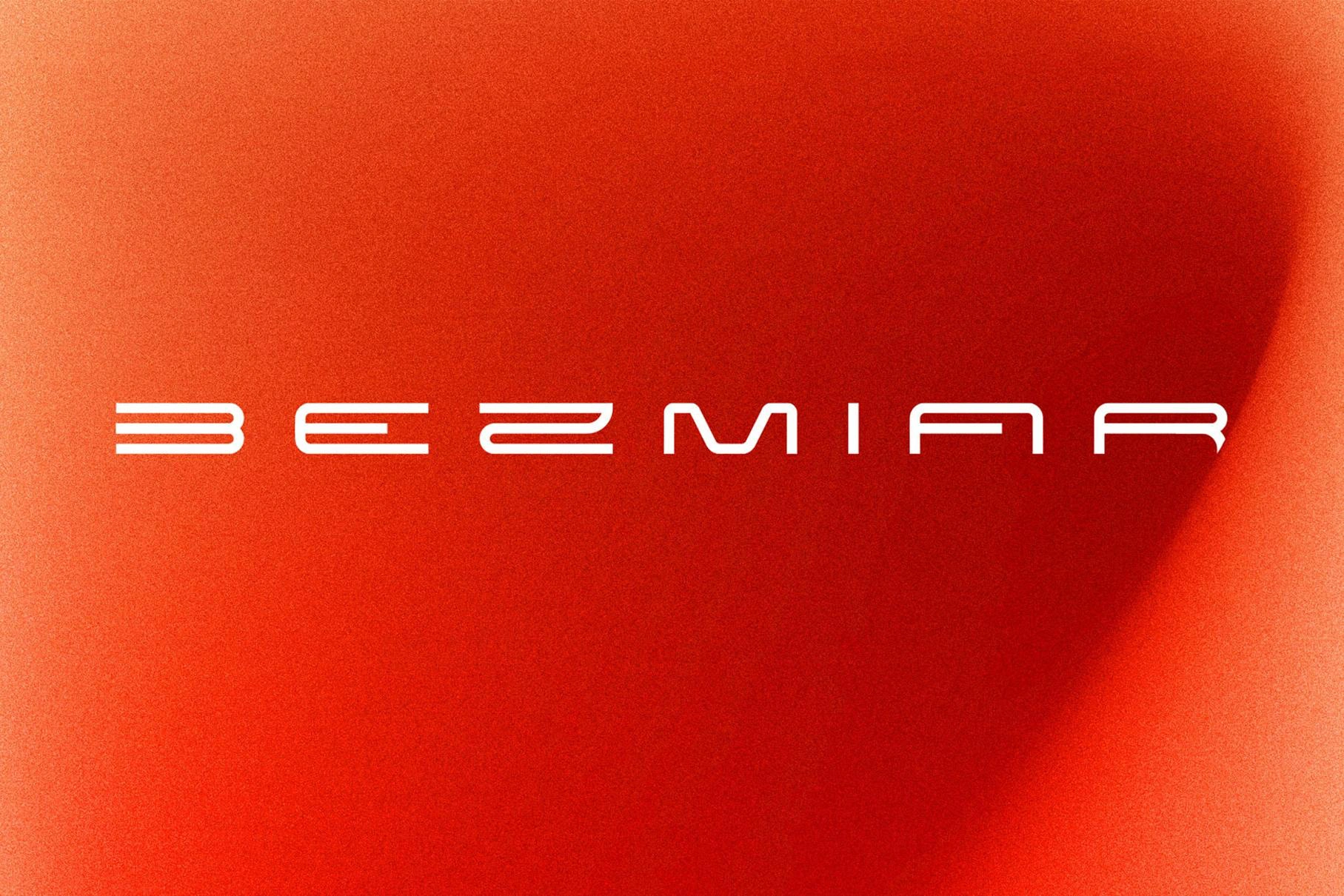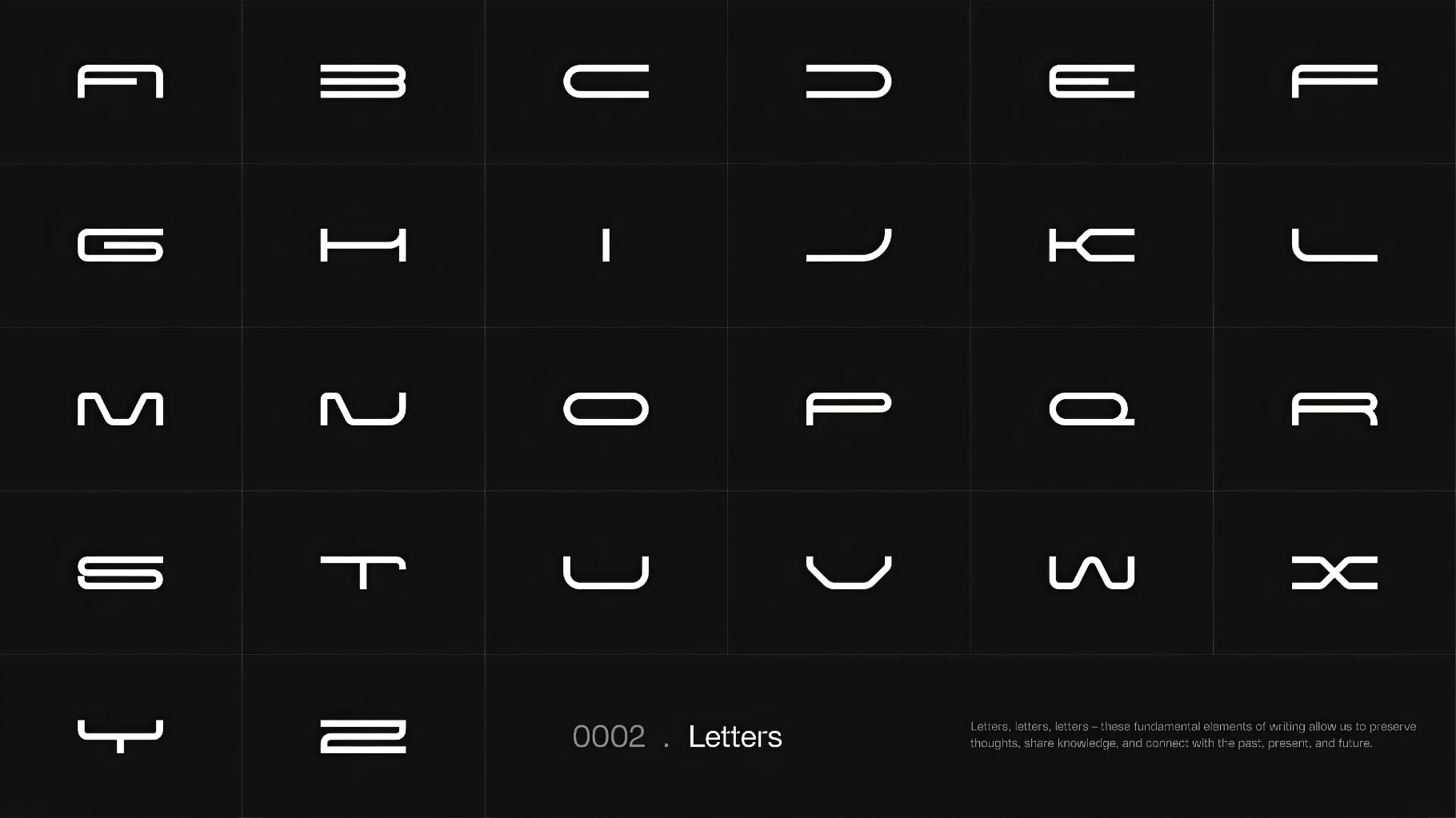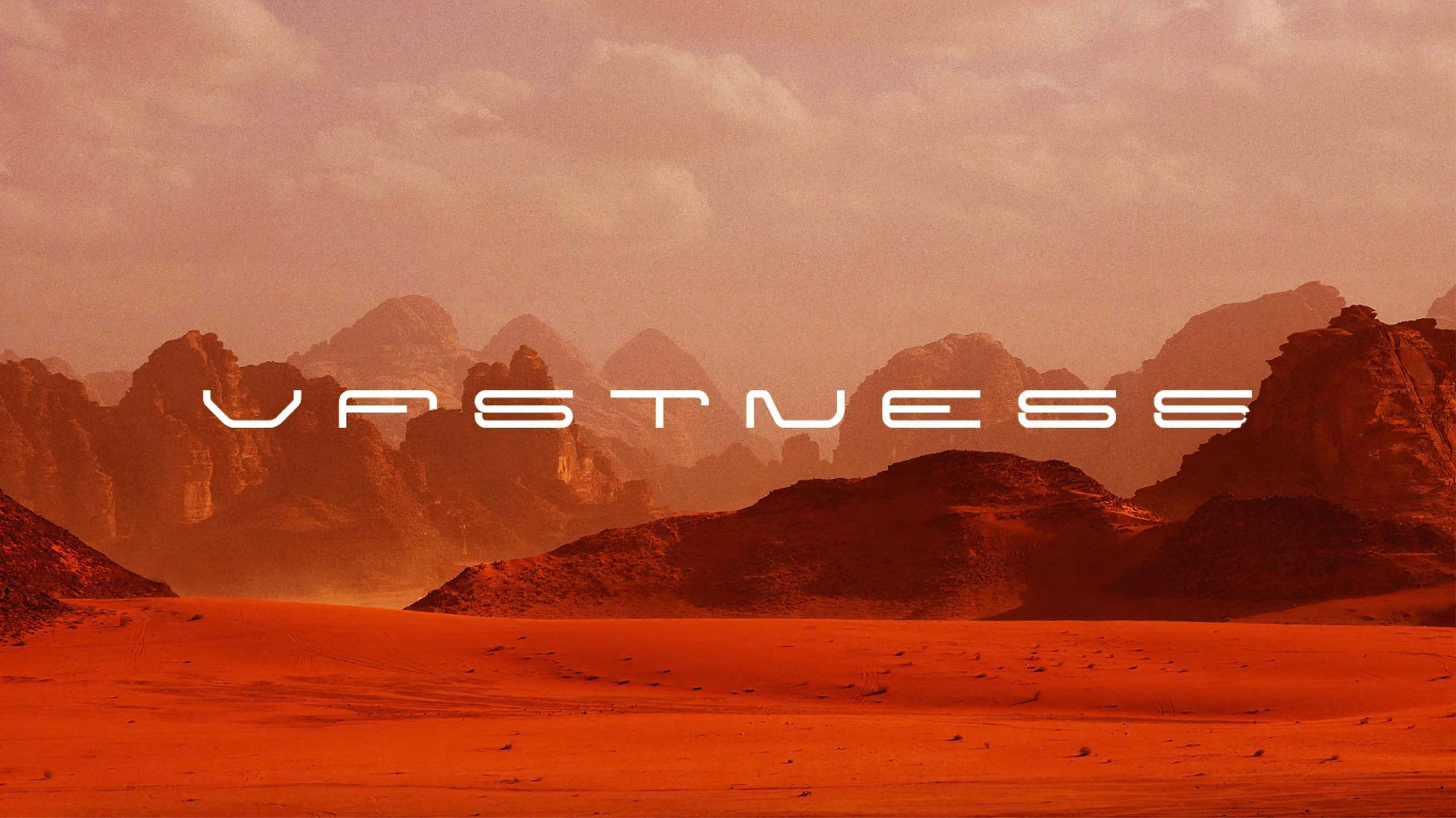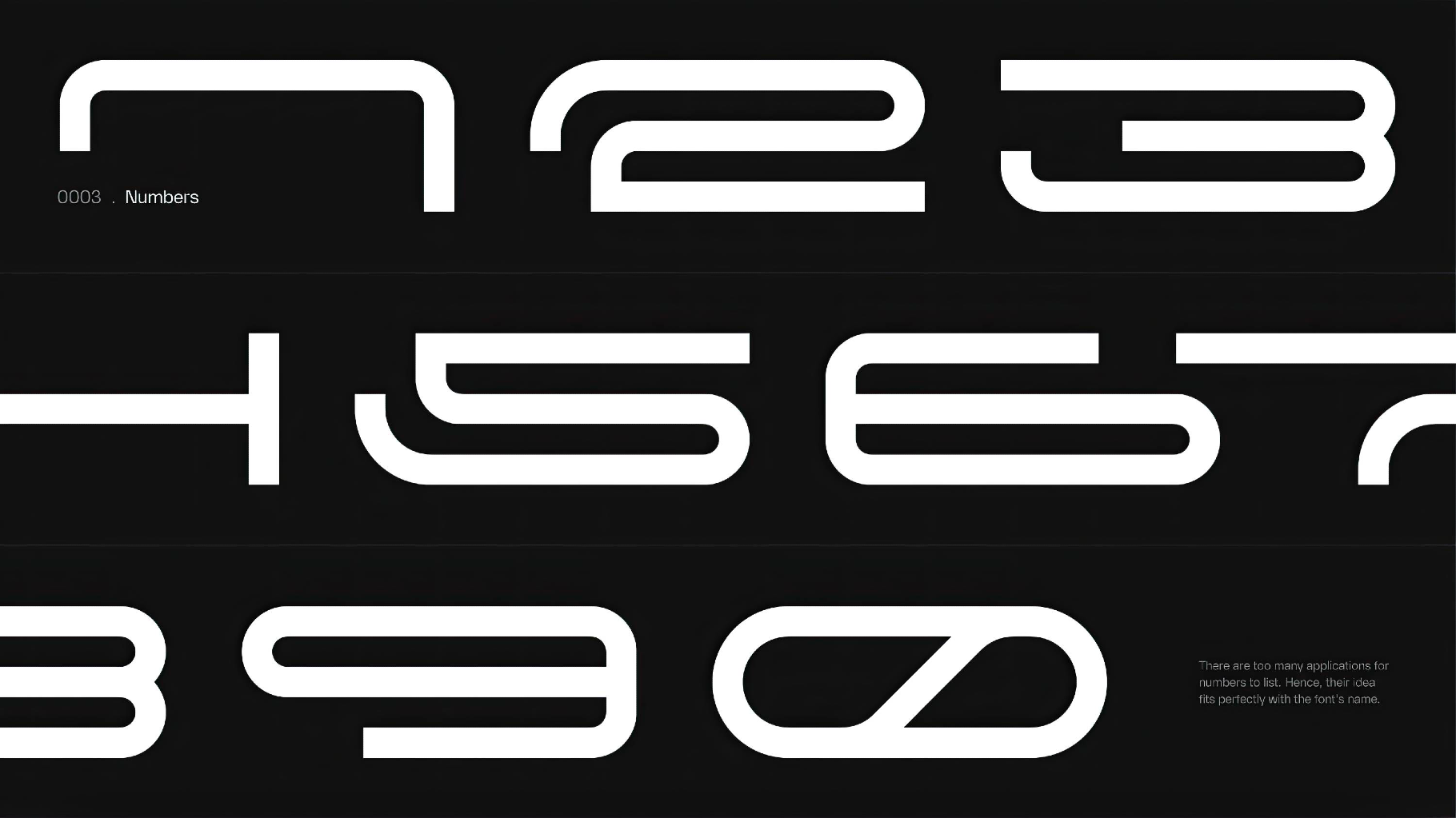
Bezmiar Font
Strict, a bit dramatic, and definitely not friendly. In fact, Bezmiar looks like it belongs on a poster for an obscure sci-fi film where nothing is explained, and everything feels important. Its condensed shapes and sharp rhythm work great for film titles, exhibition graphics, album covers, fashion editorials, concept decks, visual identities, UI mockups, and book jackets.